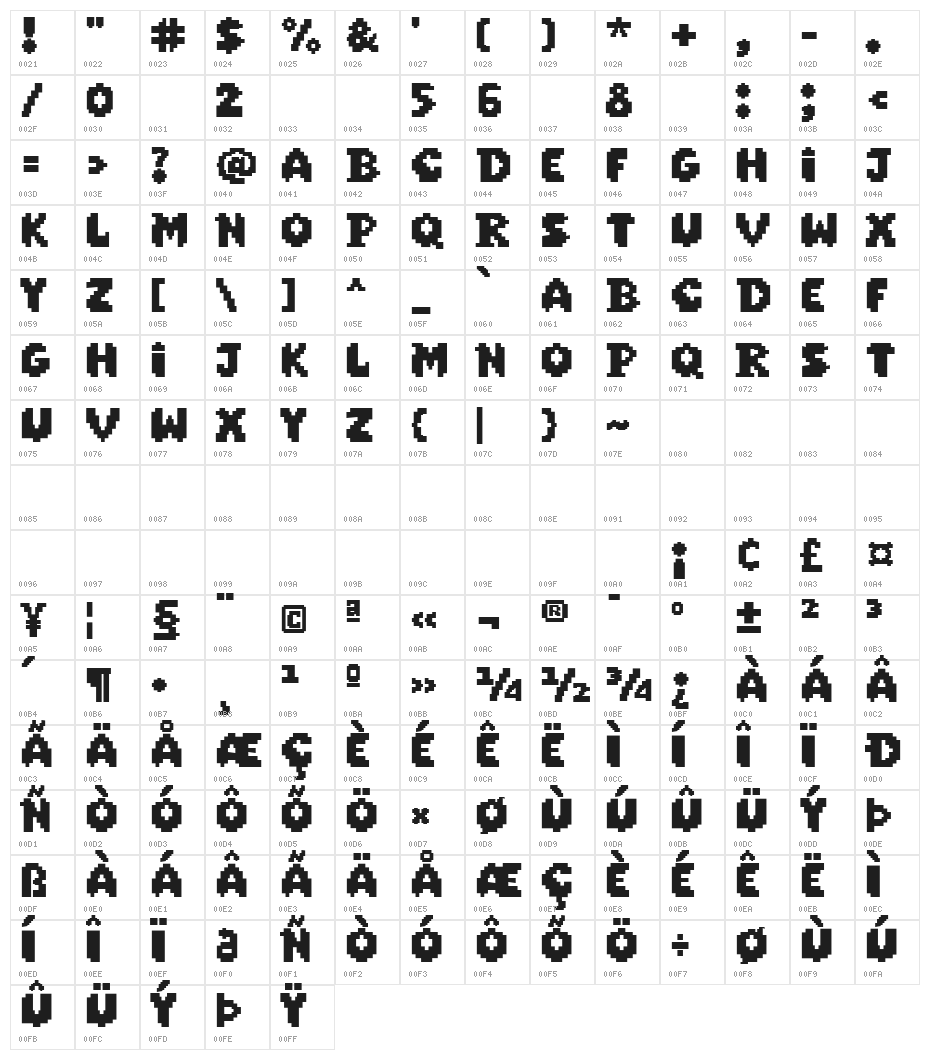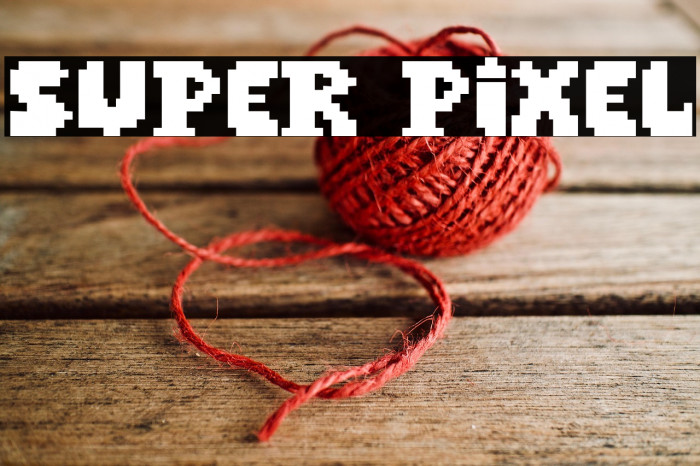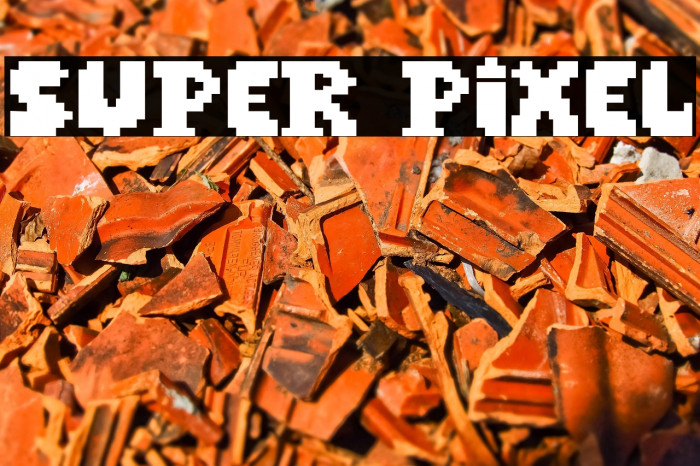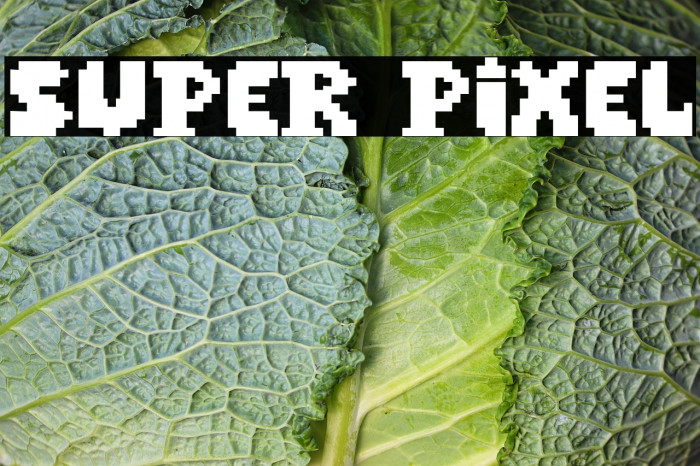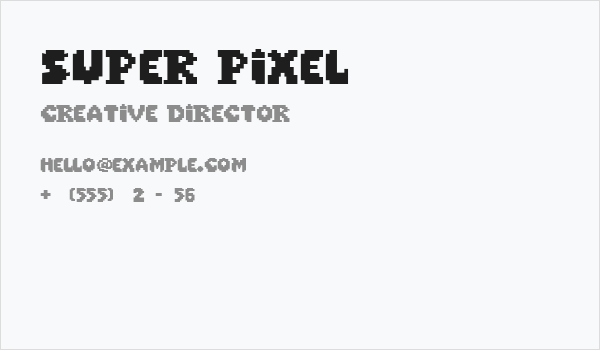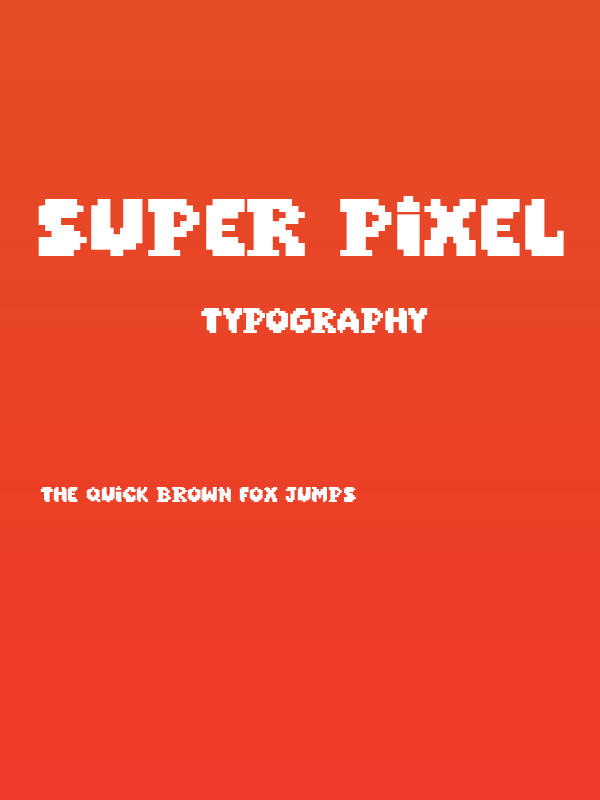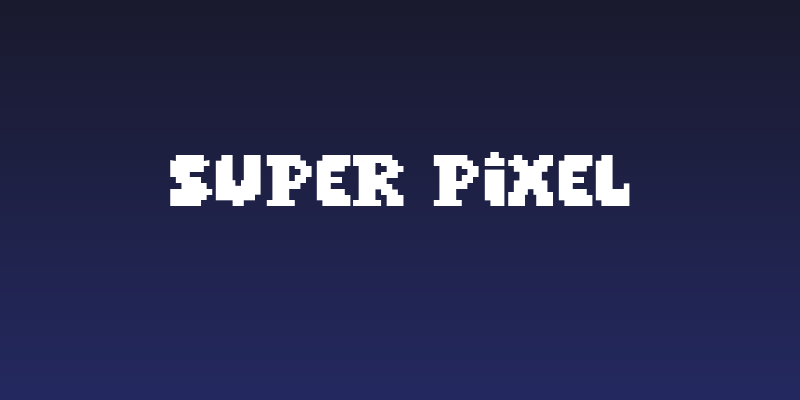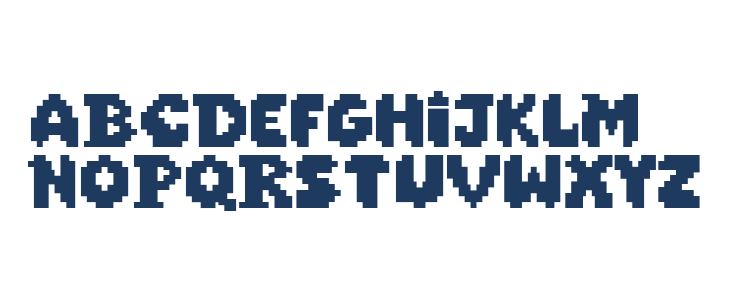
Super Pixel Font
| समग्र शैली | Retro, Nostalgic |
| उपयोग का मामला | Headlines, Logos, Posters |
| सुझाए गए प्रोजेक्ट | Perfect for video game designs, retro-themed posters, digital art projects, and any creative work that seeks to capture the essence of early digital graphics. |